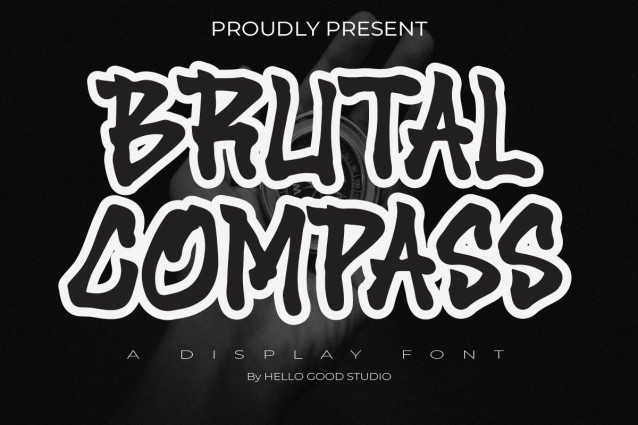
Brutal Compass Font
Brutal Compass Font, It would be a perfect choice to design posters, affiches, logos, t-shirt and magazine prints, eye-pleasing typographic designs and more.